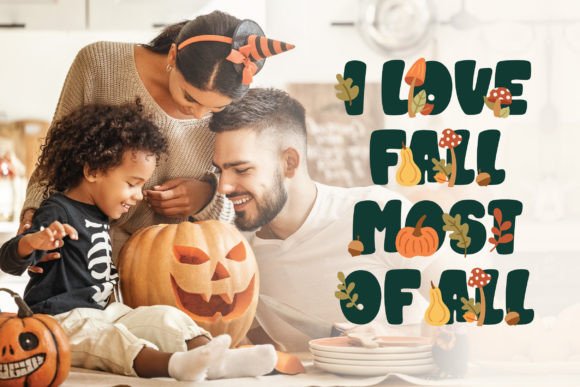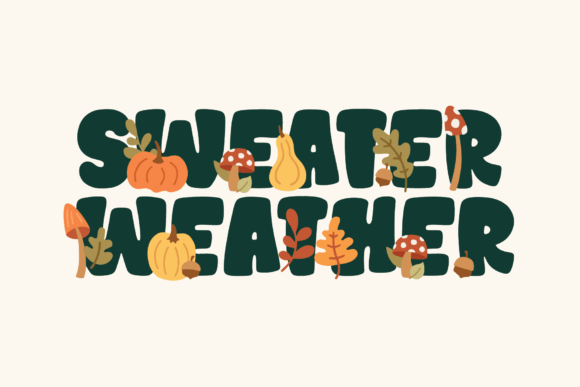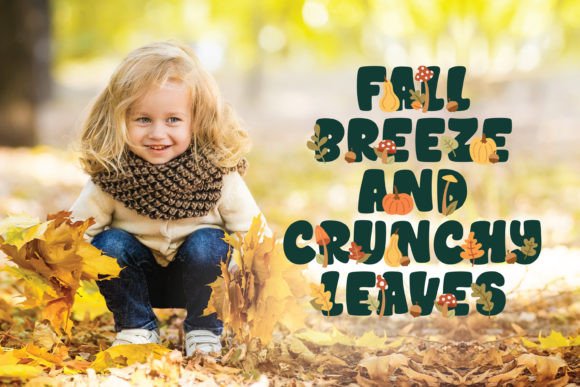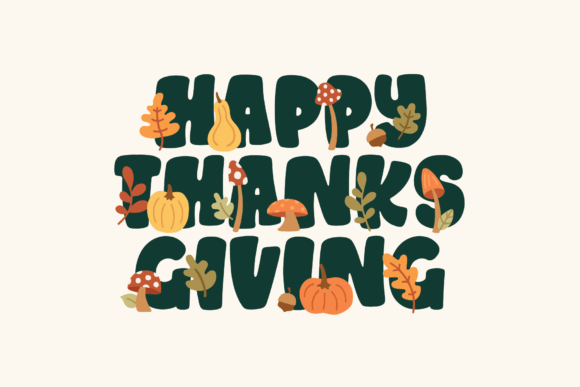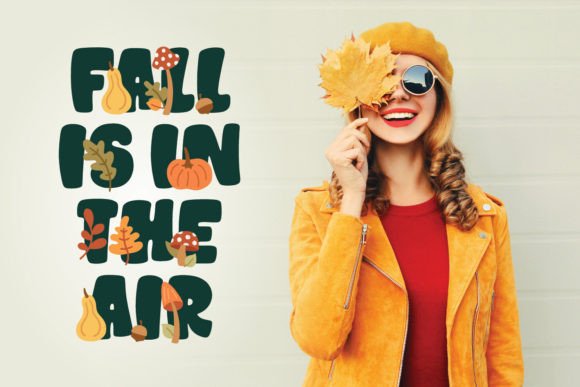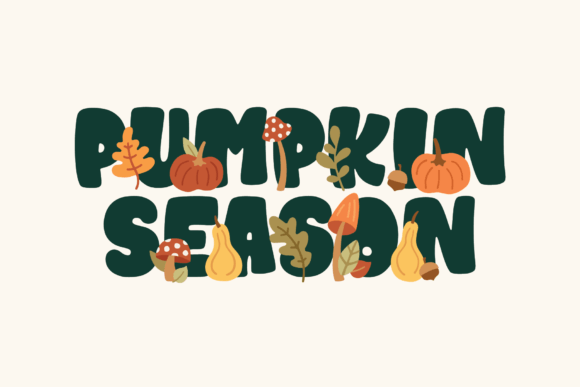
Introduction to Howdy Pumpkin Font
Howdy Pumpkin is an autumn inspired all-caps font.
Included in the pack is a simple OpenType version and two color OpenType-SVG versions that have alternates of each letter with different doodles Mix and match until your design looks just right.
Key Features of Howdy Pumpkin Font